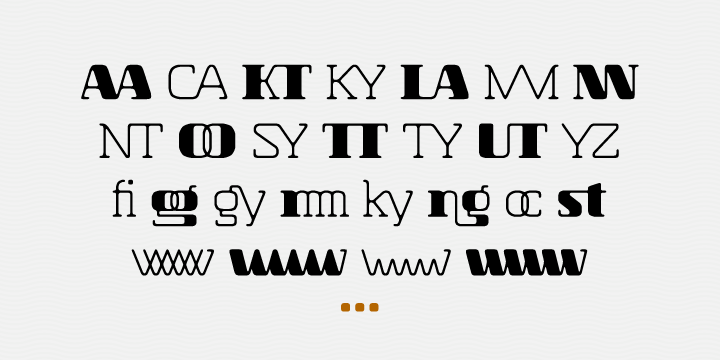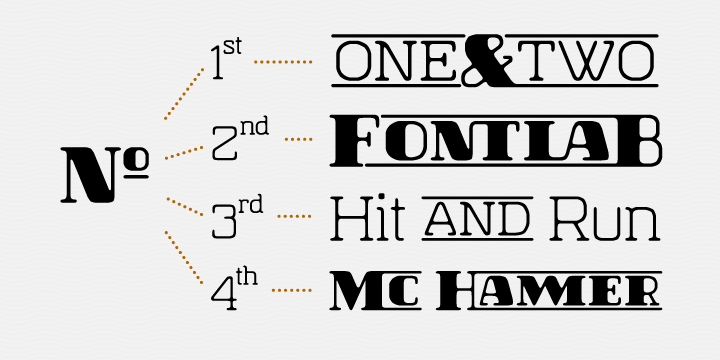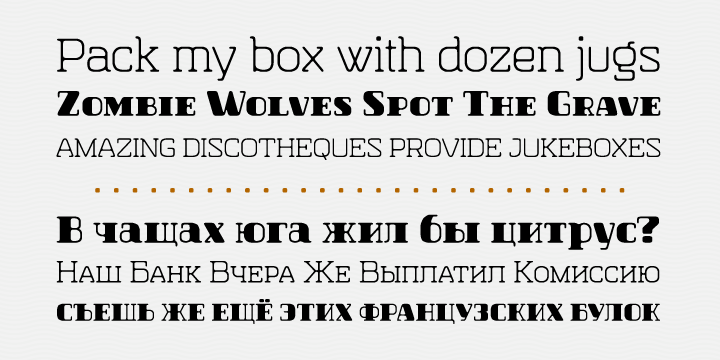
Hazelnut Pro Font Family
Font – Hazelnut Pro
This small family can be counted as 4 fonts in 2. Because both weights contain small caps, 12 sets of stylistic alternates, and a decorative swashed form…